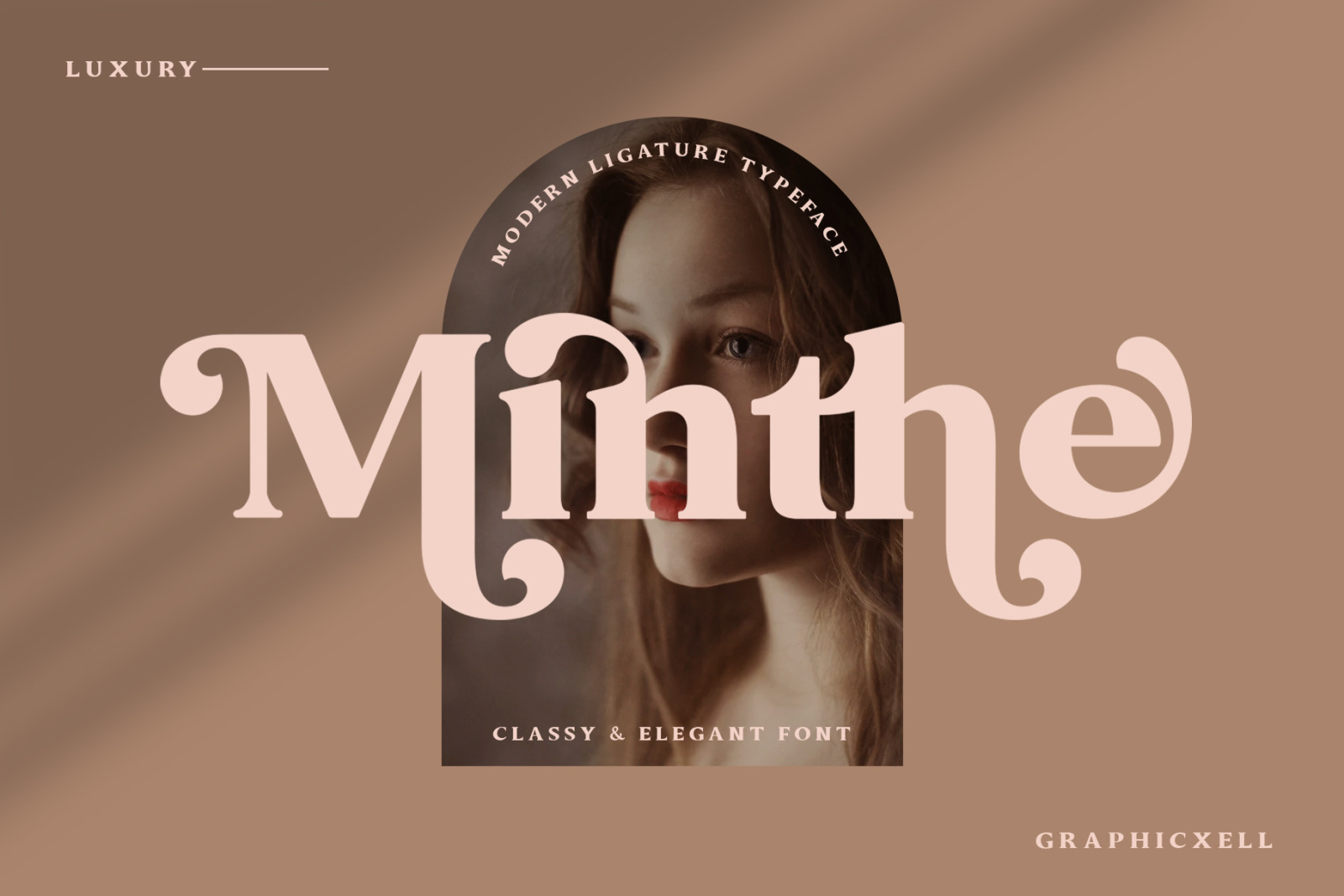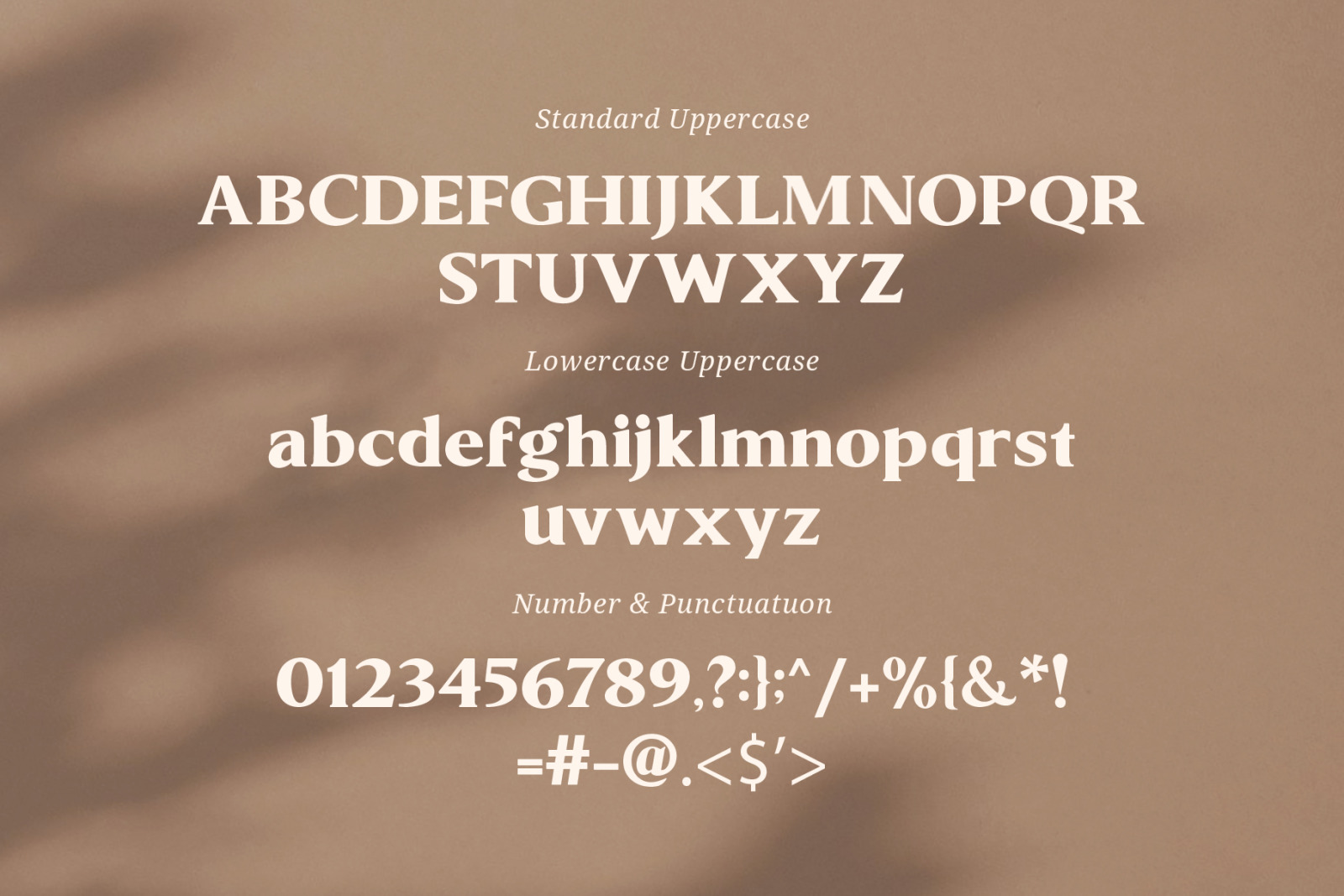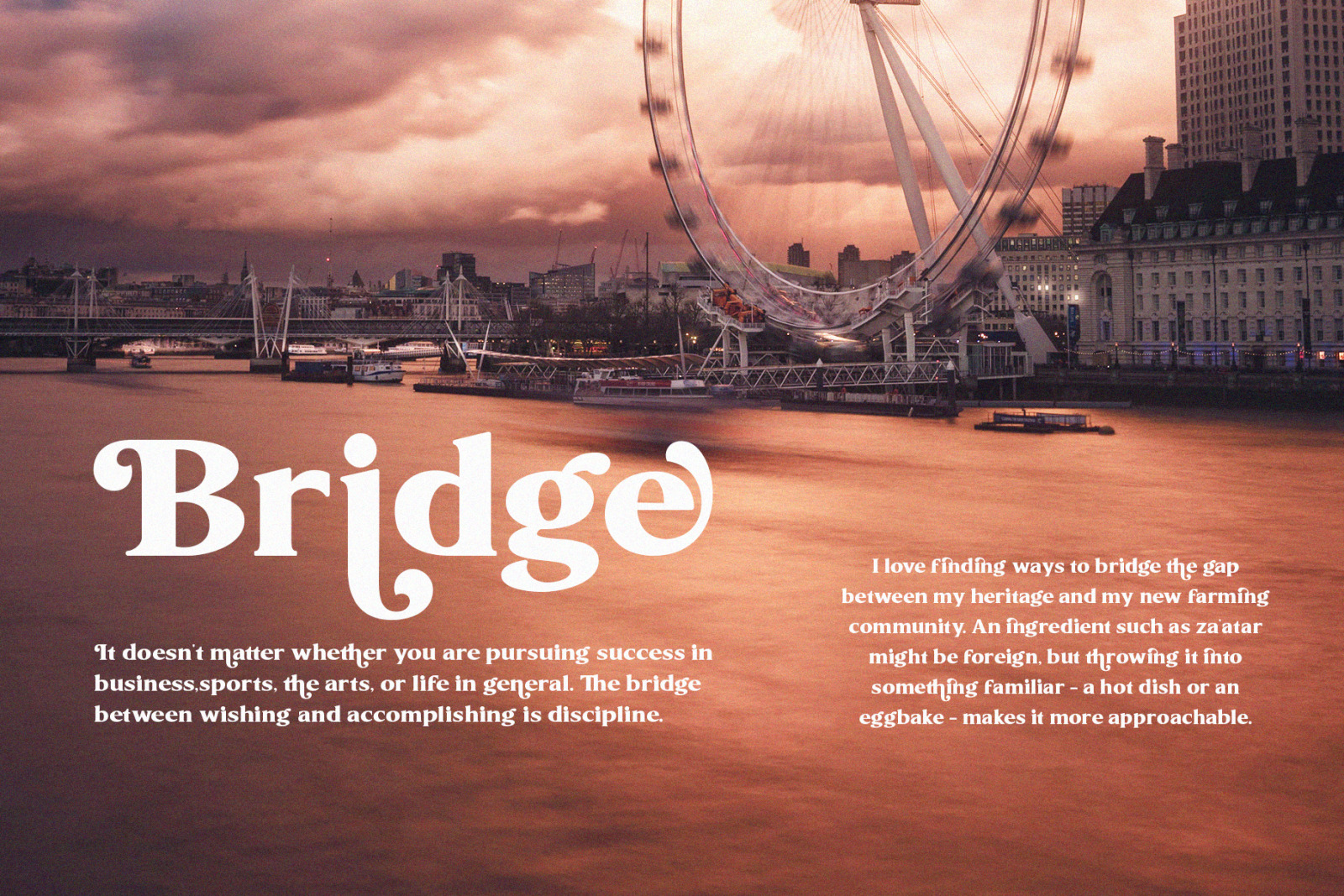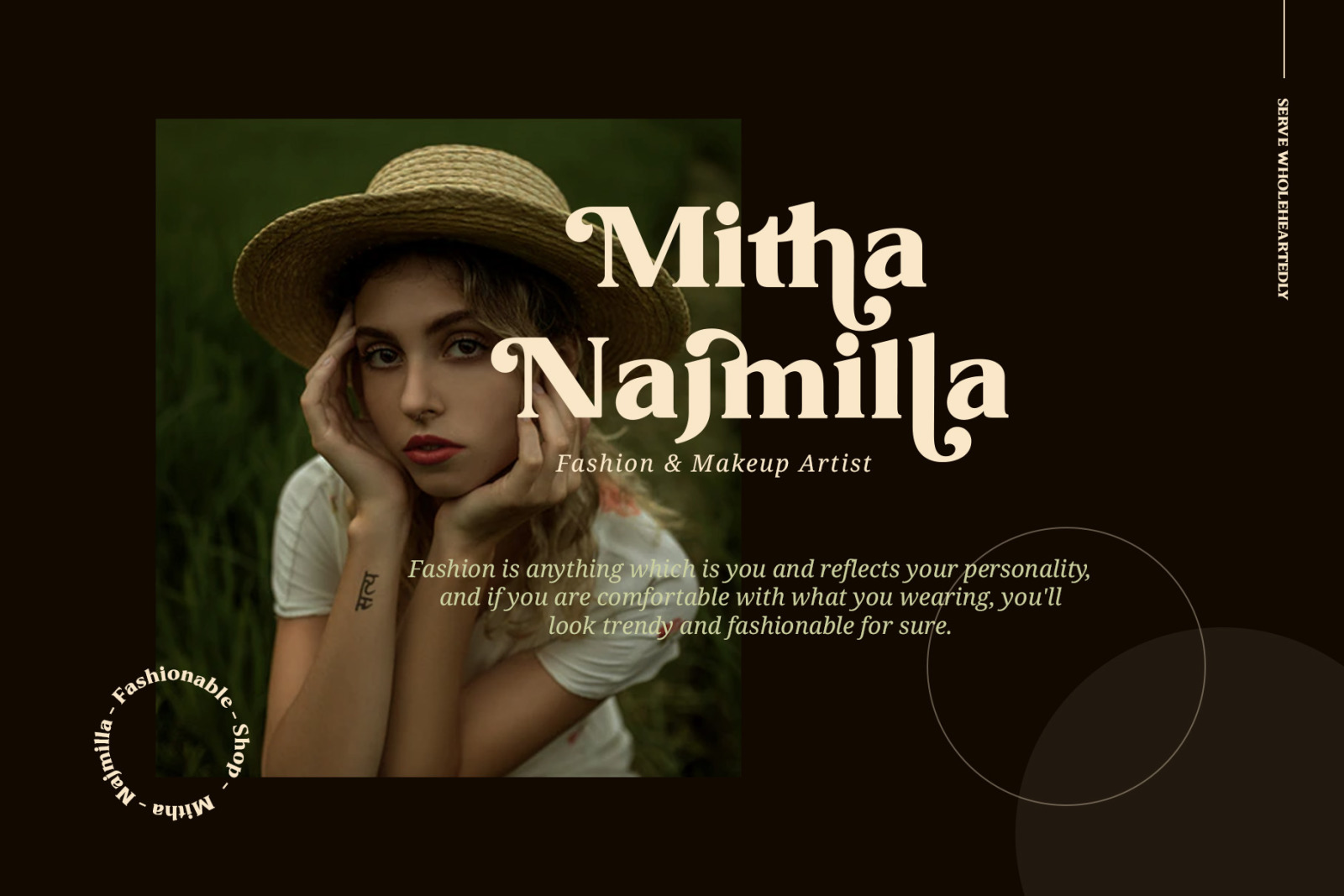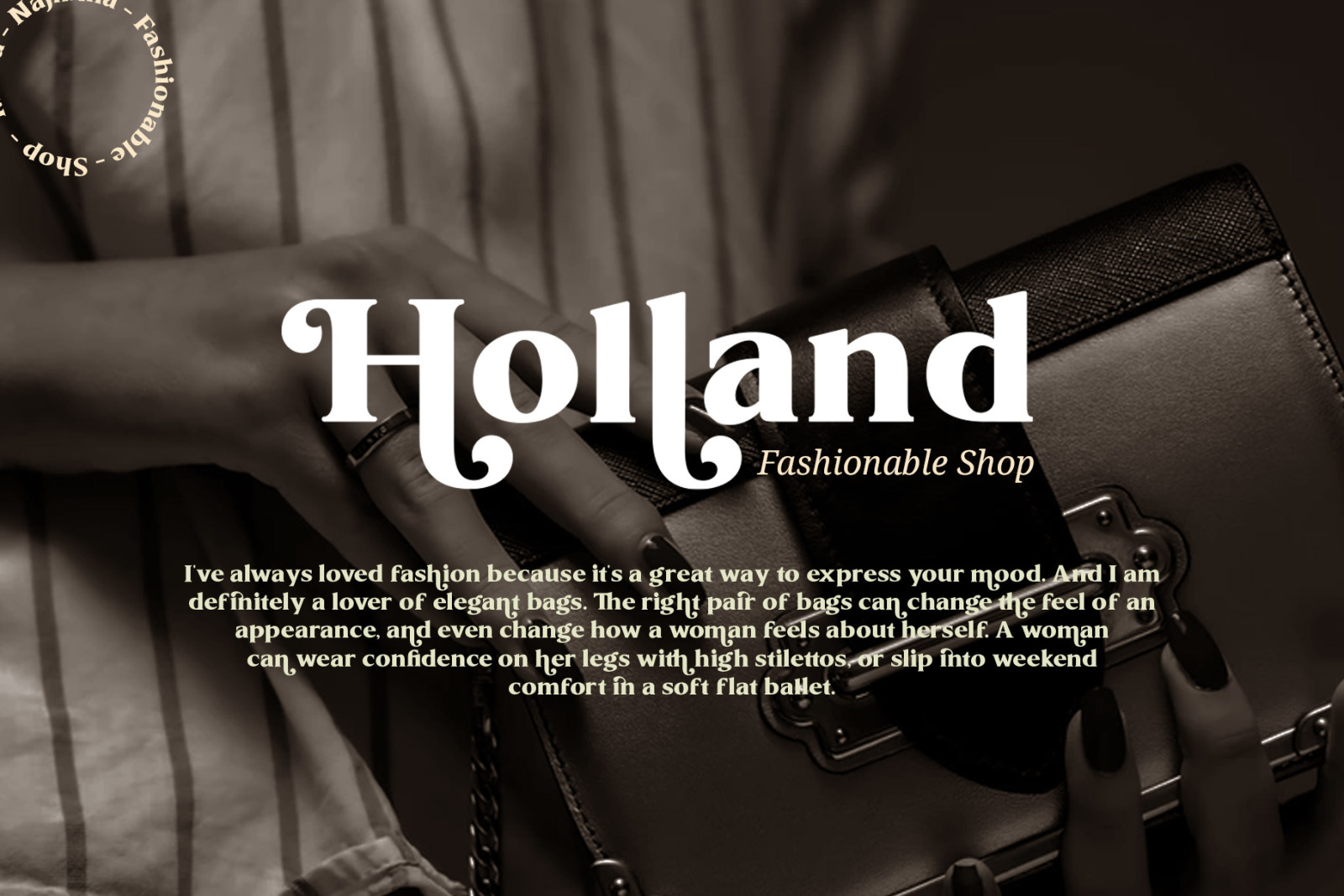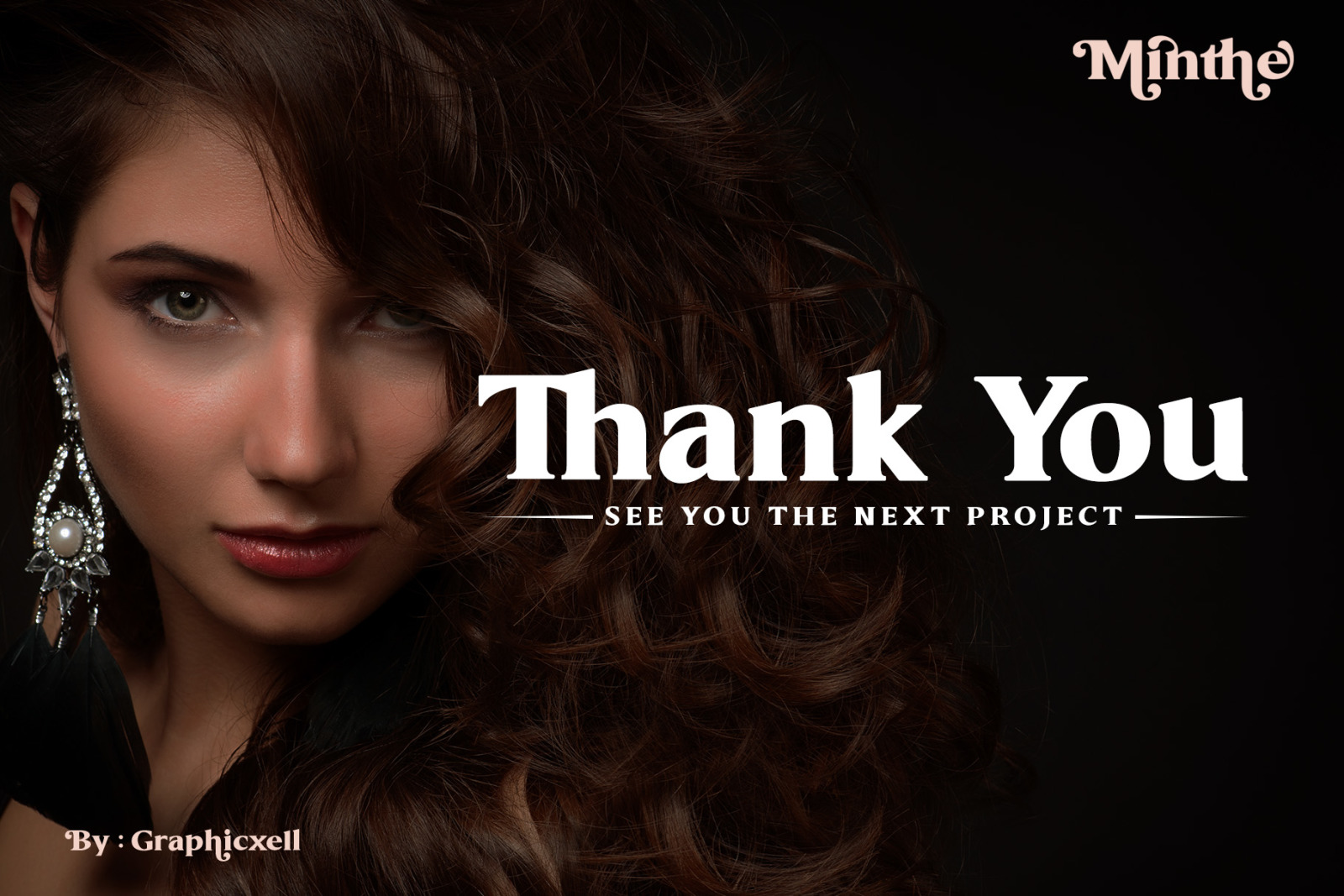
Minthe - Serif Typeface Font
Introducing Minthe - Stylish Display Serif inspired by the famous minimalist logo perfect for the purposes of designing templates, brochures, videos, advertising branding, logos and more.
+ Ligatures
+ International Accent
Fonts include multilingual support